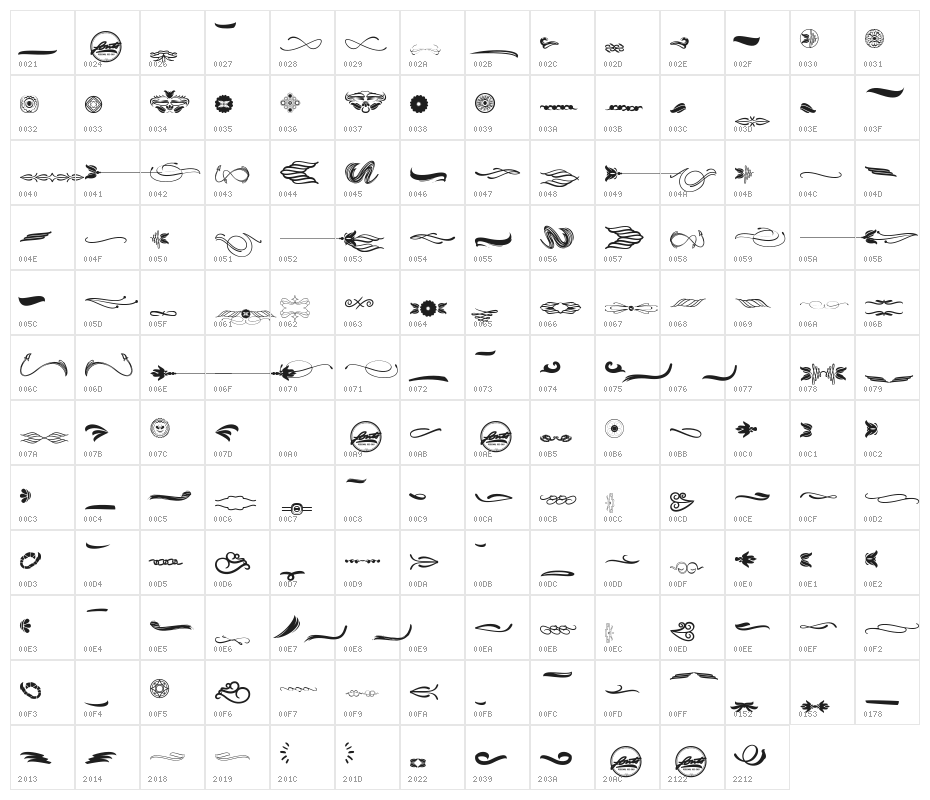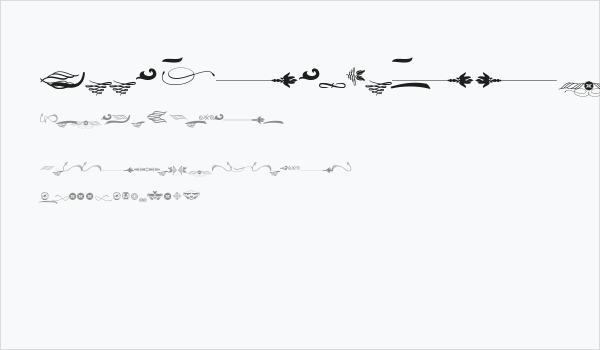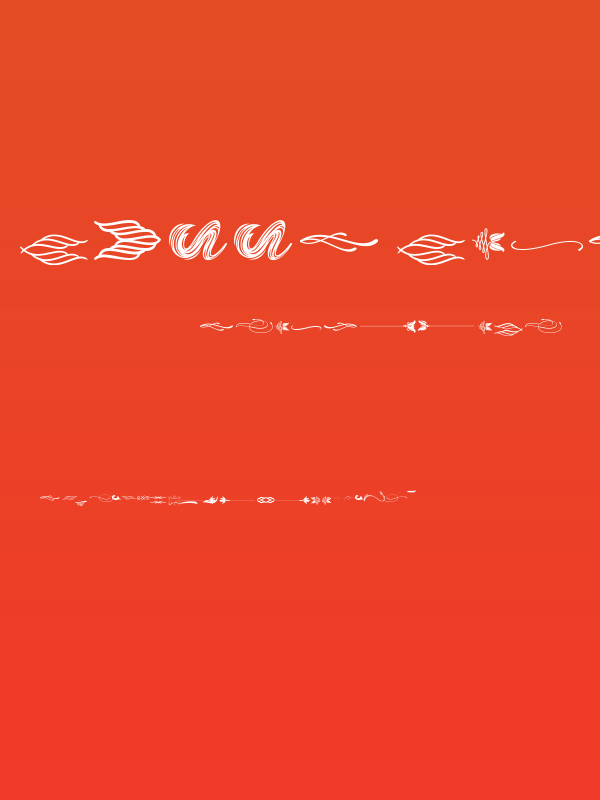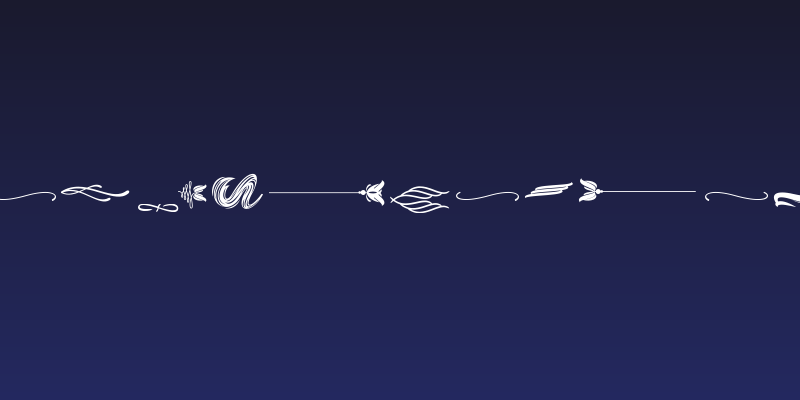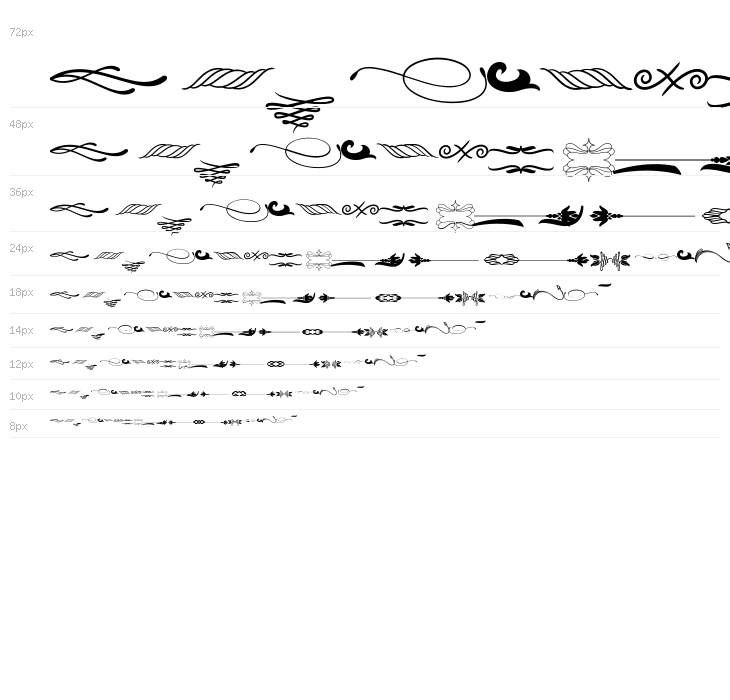
Sweet spot_PersonalUseOnly Font
Sweet spot_PersonalUseOnly Description
A collection of ornate, decorative glyphs and border elements featuring flourishes, swirls, medallions, and intricate linework. The set includes a variety of symmetrical and asymmetrical motifs, suitable for embellishing designs.
| Overall Style | Vintage, Ornamental, Decorative |
| Use Case | Borders, Dividers, Decorative accents |
| Proposed Projects | Wedding invitations, certificates, vintage packaging, decorative dividers, scrapbooking, branding accents. |